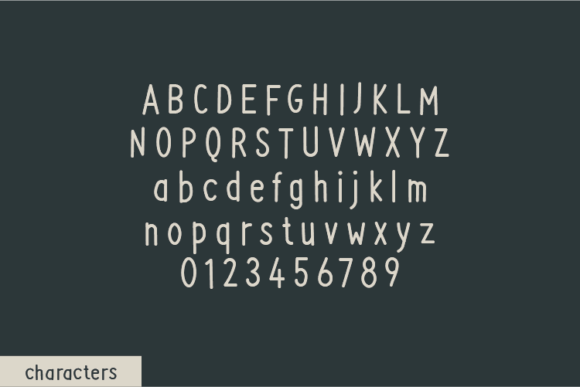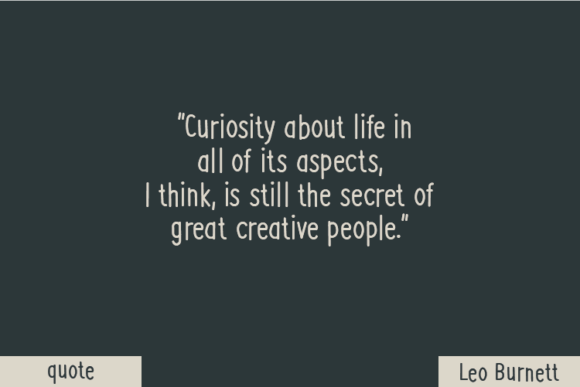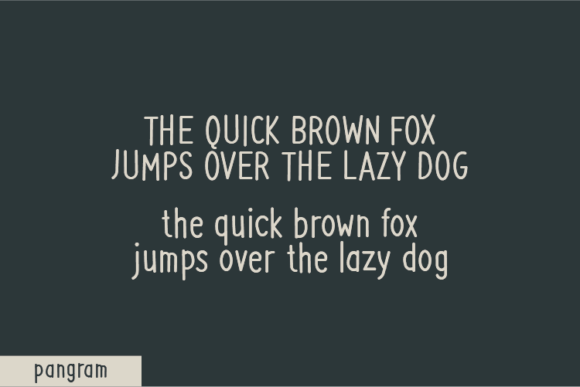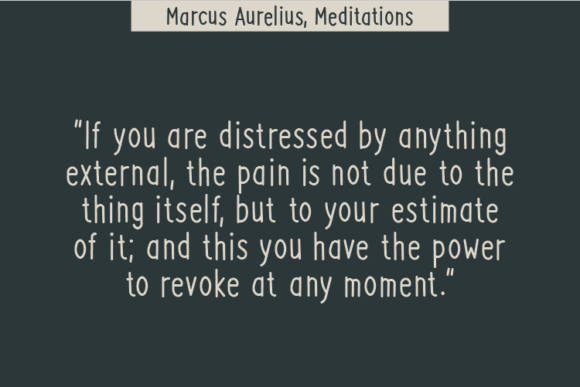
Introducing Accessible Font: The Unique Handwritten Style for Designers and Crafters
In the world of typography, fonts play a crucial role in conveying messages, expressing emotions, and creating visual identities. For designers and crafters, finding the perfect font can be a daunting task. However, if you’re looking for a unique and interesting font that can elevate your designs, look no further than Accessible Font. In this article, we’ll explore the features and benefits of Accessible Font, and why it’s perfect for quotes, notes, tees, and product design.
What makes Accessible Font unique?
Accessible Font is a natural handwritten font that has been crafted without changing a single node in each character’s indentation. This distinctive approach makes it stand out from other fonts, giving it a one-of-a-kind charm. The font’s creator has carefully preserved the original indentation of each character, resulting in a font that is both elegant and quirky.
Key Features of Accessible Font
- Natural Handwritten Style: Accessible Font boasts a beautiful, natural handwritten style that is perfect for designs that require a personal touch.
- Unique Indentation: The font’s unique indentation feature sets it apart from other fonts, making it a great choice for designers looking for something different.
- High Readability: Despite its unique style, Accessible Font is highly readable, making it suitable for use in a variety of applications, from quotes and notes to product design.
- Versatile: Accessible Font can be used for a wide range of design projects, including t-shirts, posters, stickers, and more.
Why designers and crafters love Accessible Font
Designers and crafters are always on the lookout for fonts that can help them create unique and eye-catching designs. Accessible Font offers a range of benefits that make it a favorite among creative professionals. Here are just a few reasons why:
- Easily recognizable: The font’s distinctive style makes it easily recognizable, which can help to create a strong brand identity.
- Emotional Connection: The natural handwritten style of Accessible Font can help to create an emotional connection with your audience, making your designs more relatable and engaging.
- Time-Saving: With Accessible Font, designers and crafters can save time and effort, as the font’s unique style eliminates the need for extensive editing and customization.
Using Accessible Font in Design Projects
Accessible Font is a versatile font that can be used in a wide range of design projects. Here are some ideas to get you started:
- Quotes and Inspirational Messages: Use Accessible Font to create inspiring quotes and messages that will resonate with your audience.
- Notes and Journaling: The font’s natural handwritten style makes it perfect for notes and journaling, adding a personal touch to your writing.
- T-Shirts and Apparel: Create eye-catching t-shirt designs with Accessible Font, perfect for crafters and designers looking to create unique apparel.
- Product Design: Use Accessible Font to create labels, packaging, and other product design elements that require a personal touch.
Accessible Font is a unique and versatile font that offers a range of benefits for designers and crafters. Its natural handwritten style, combined with its distinctive indentation feature, makes it perfect for a wide range of design projects. Whether you’re creating quotes, notes, tees, or product designs, Accessible Font is a great choice for anyone looking to add a personal touch to their work. So why not give it a try and see how Accessible Font can elevate your designs?